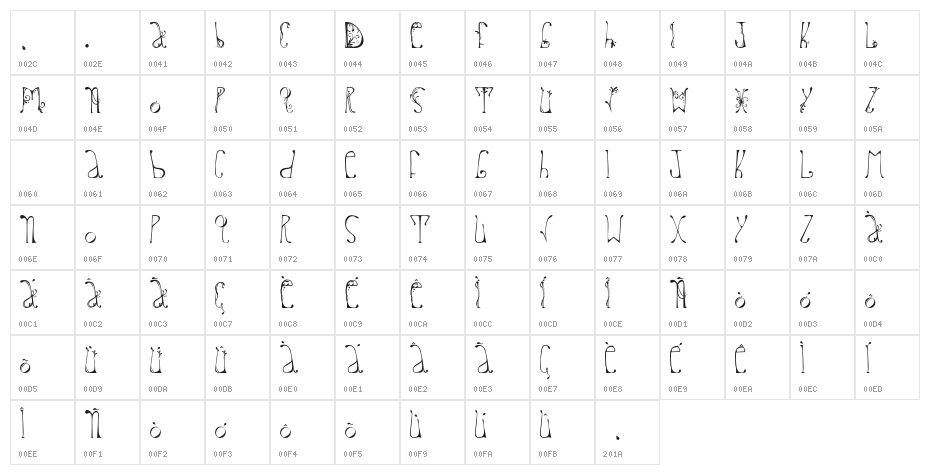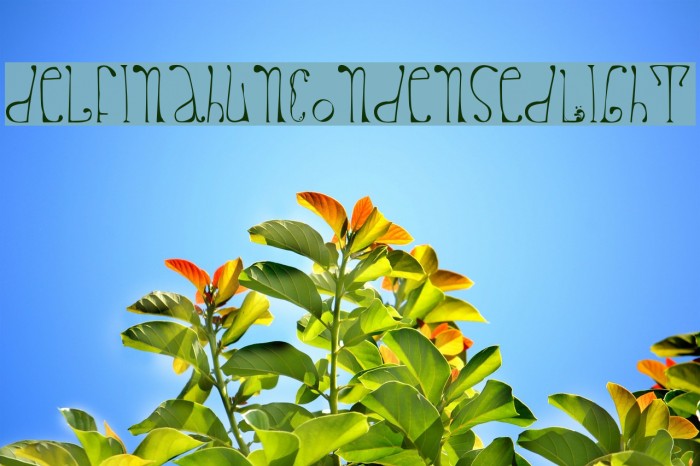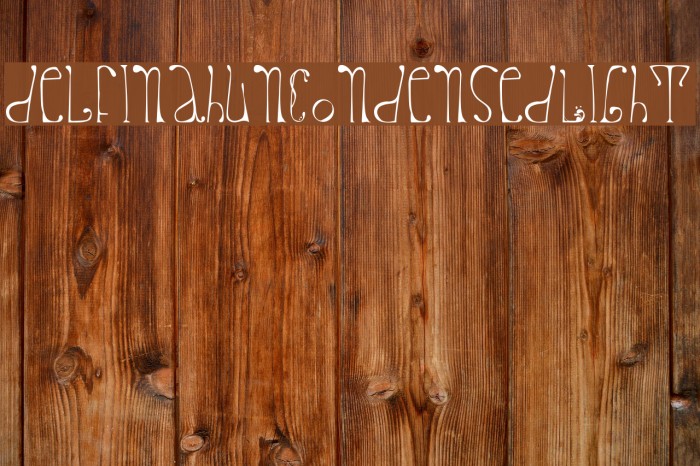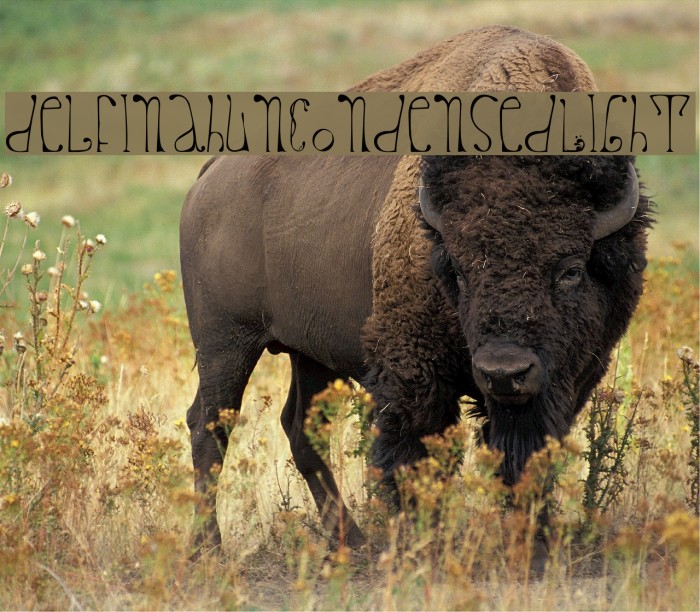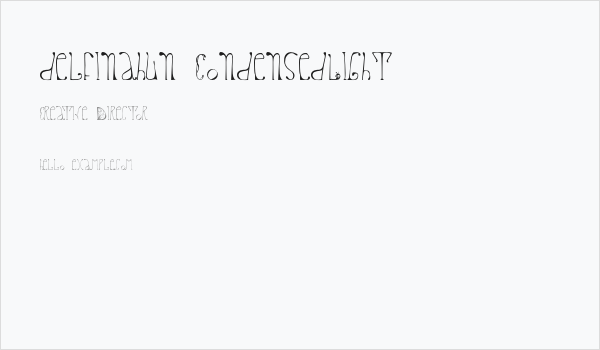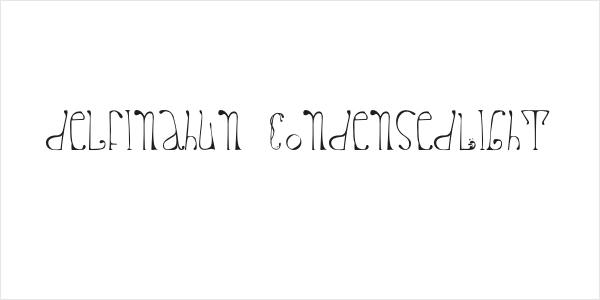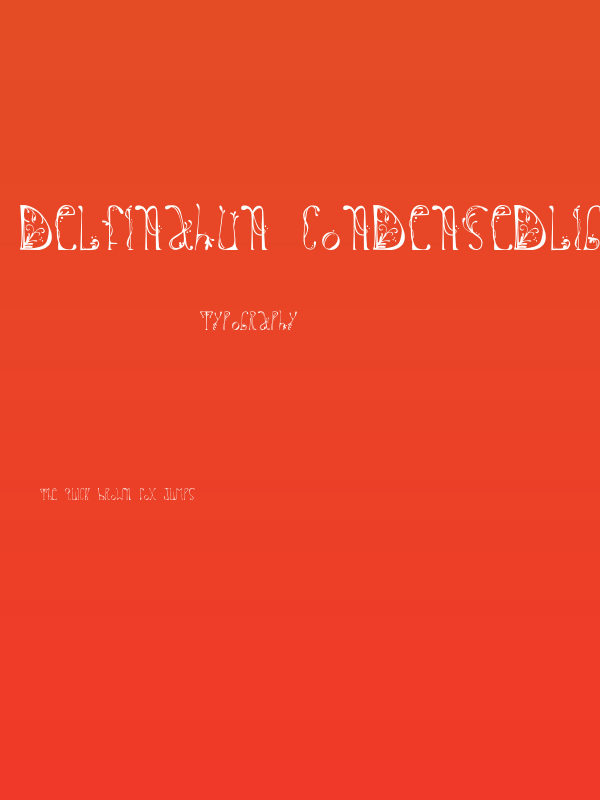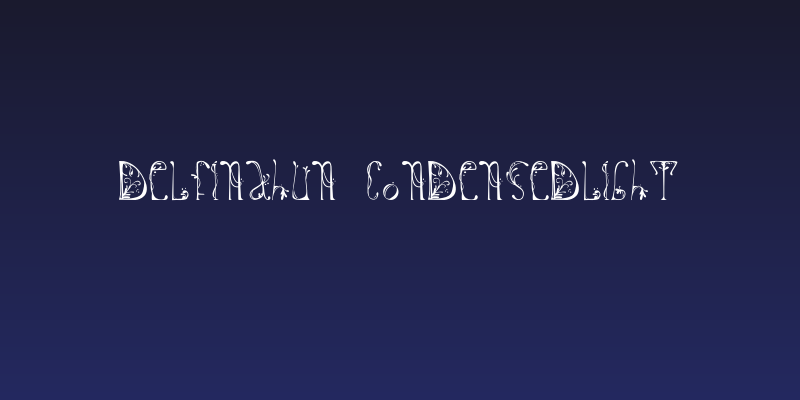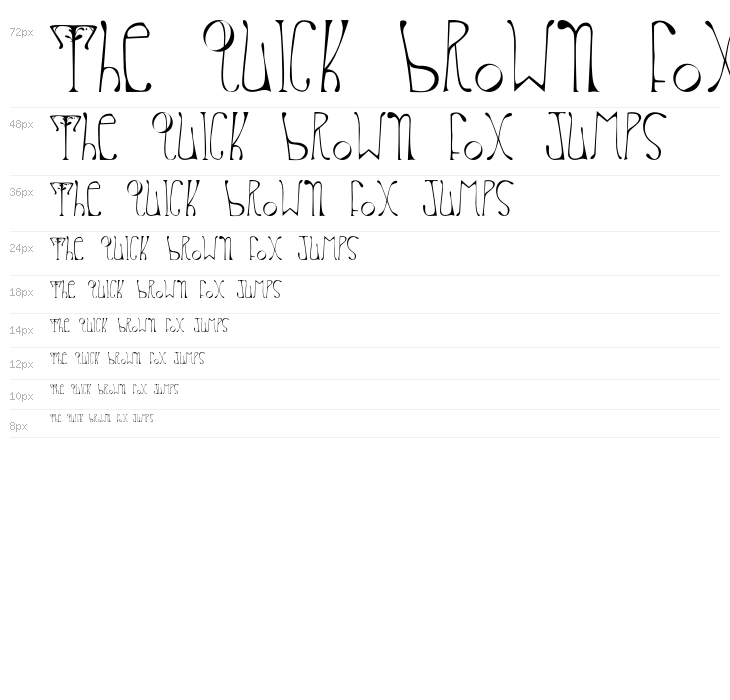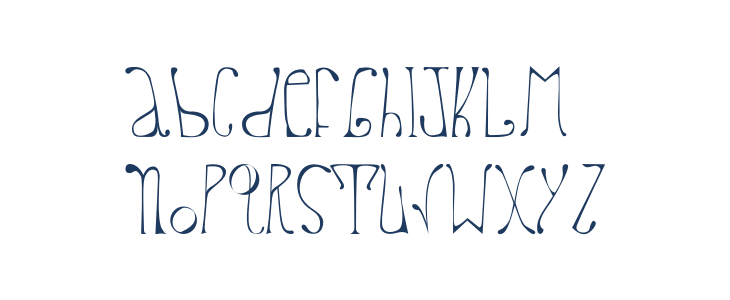
delfinahun-CondensedLight Font
delfinahun-CondensedLight Description
This font features a whimsical and decorative style, characterized by its playful and artistic letterforms. Each character is adorned with unique flourishes and embellishments, creating a sense of movement and creativity. The strokes are light and delicate, contributing to an airy and elegant appearance. The font maintains a consistent height across all characters, while the width varies, adding to its dynamic nature. The overall design is reminiscent of hand-drawn illustrations, making it suitable for projects that require a touch of fantasy and imagination.